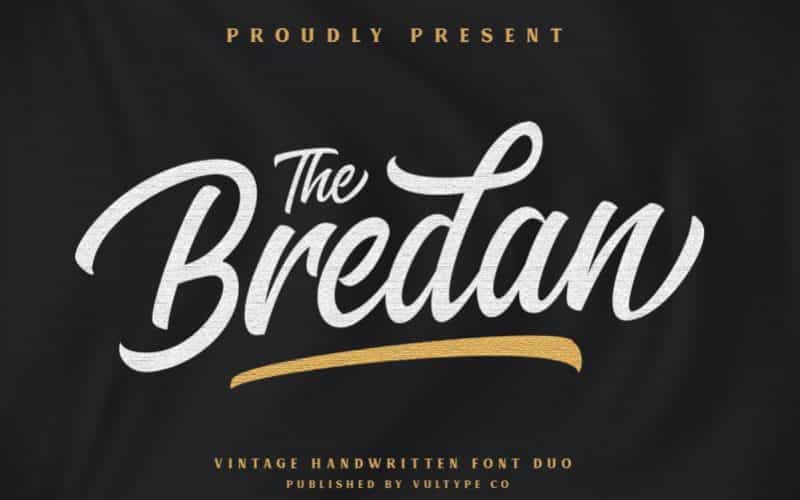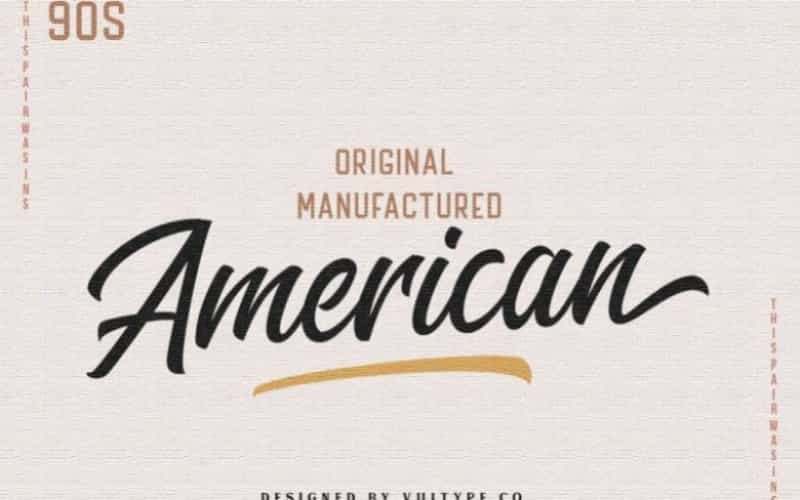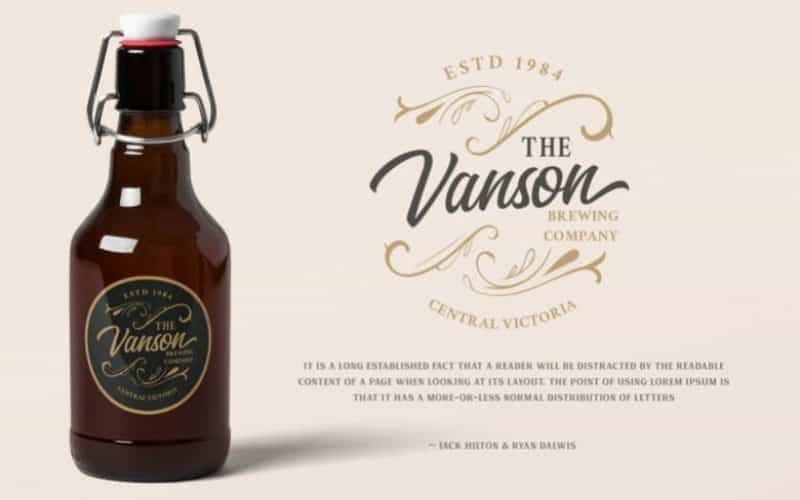
The Bredan Script & Sans was very inspired from modern vintage and retro style. With font duo that combines two trends. You’ll be seeing this combination a lot more in the design world!! All characters have an imperfect shape that gives a natural look in design. It easily cooperating together and perfect for creating the traditional style logos, labels, package design, lettering for t-shirts and much others..